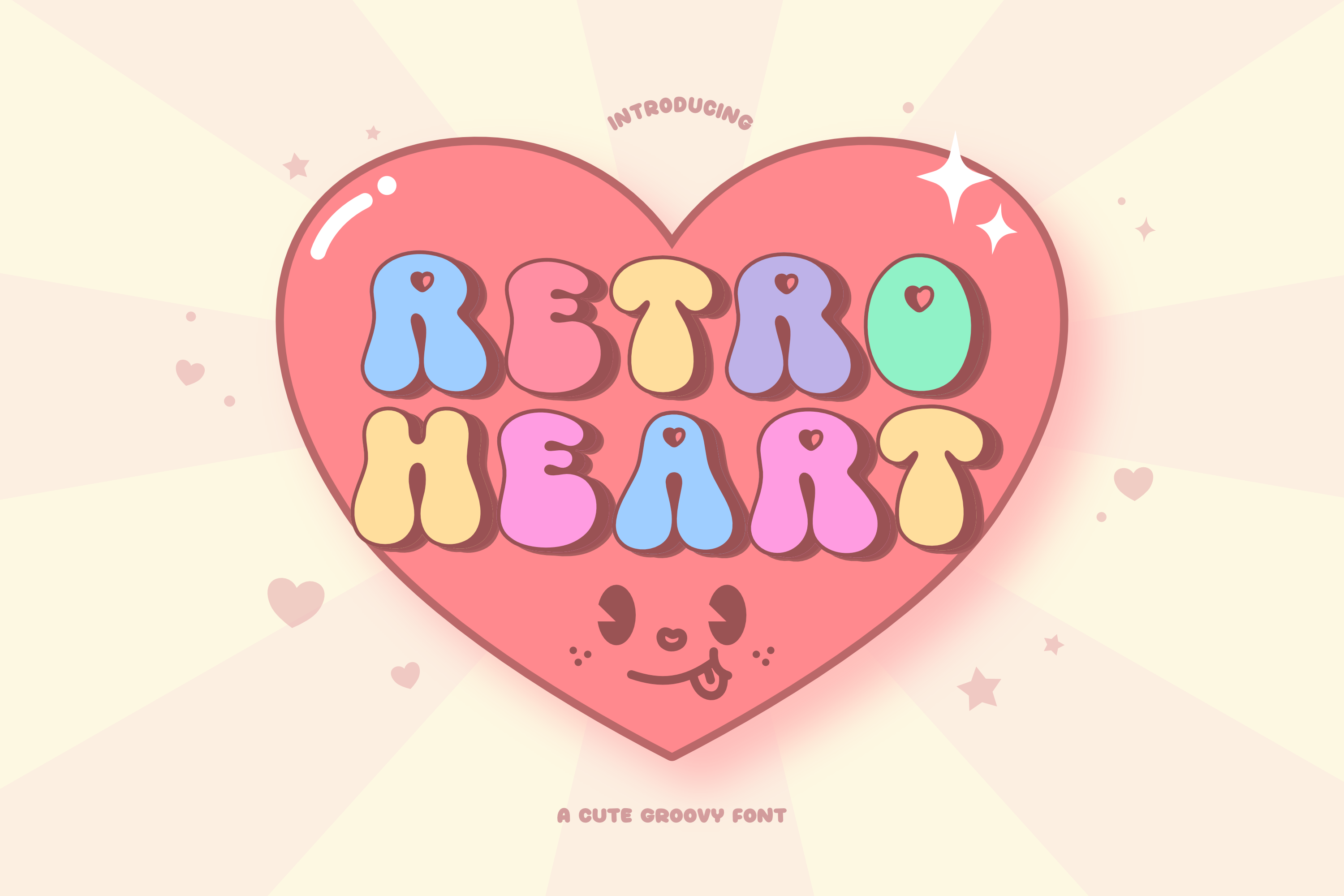
Retro Heart Font + Clipart
Retro Heart is a cute and groovy retro font with a heart gimmick, making it perfect for romantic and vintage-inspired creations. Ideal for Valentine’s Day cards and gifts, it infuses a playful vibe into your designs with its retro heart-shaped character cartoons.